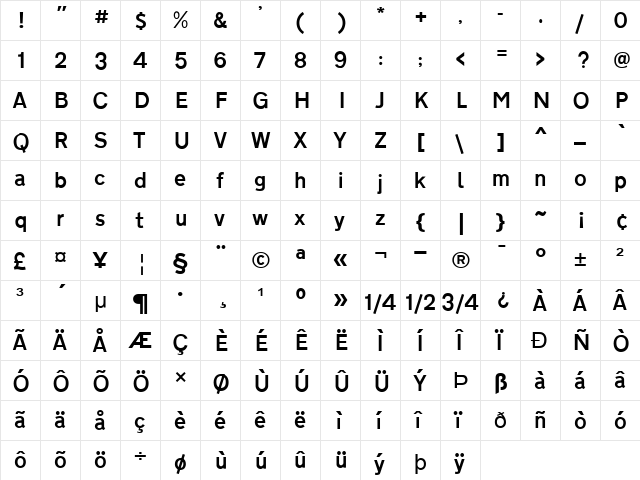
Roadgeek 2005 Transport Medium Regular
Design Context for Roadgeek 2005 Transport Medium Typeface
Roadgeek 2005 Transport Medium has the bold swagger of sports branding: strong, assertive letterforms designed to dominate headlines and jerseys alike.
Built for sports team identities, athletic apparel, event posters, and high-energy promotional material.
Font Pairing: Use alongside a condensed or geometric sans for supporting copy — keep the pairing bold, functional, and free of ornament.
Pro Tip: Roadgeek 2005 Transport Medium thrives on contrast — try it large, bold, and tight against a clean background for maximum visual impact.